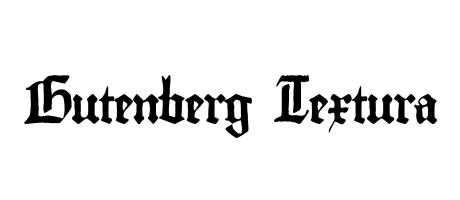
Gutenberg Textura
By Dieter Steffmann
Gutenberg Textura, a blackletter font, evokes a medieval manuscript. Its sharp, angular strokes and pointed serifs create a dramatic, almost gothic feel. The letters are tightly packed, reflecting the dense text of early printed books. It's a bold, historical typeface with a strong vertical emphasis.